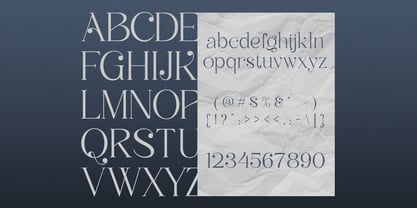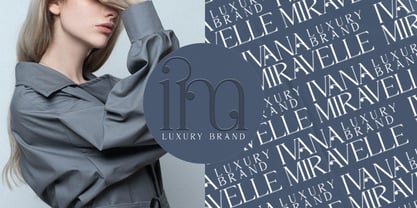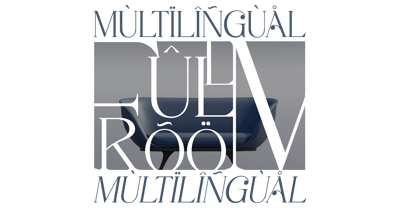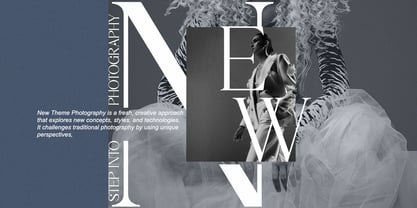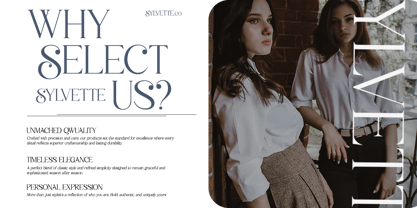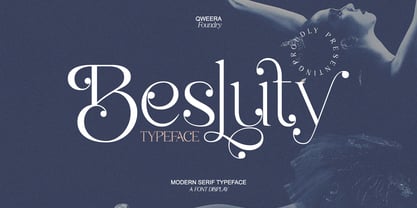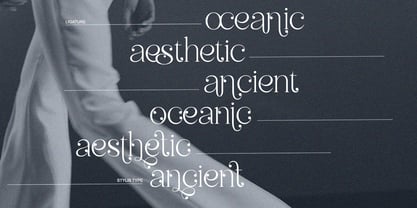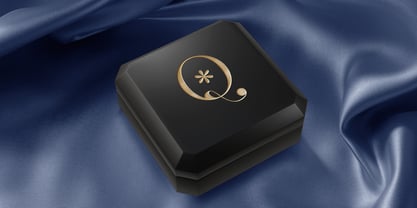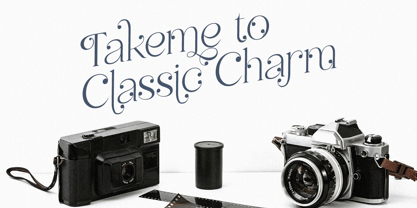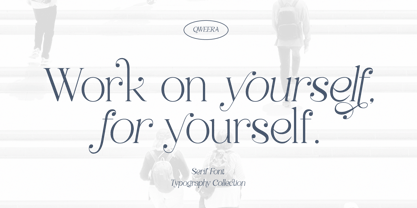
Besluty
La familia tipográfica Besluty fue diseñada por Idhham Cholid Rikzano Yahya y publicada por Qweera Studio. Besluty contiene 2 estilos y opciones de paquete familiar. Más información sobre esta familia
Besluty - Modern Elegant Luxury Serif Font for Premium Branding
Besluty is a breathtaking serif typeface that redefines contemporary elegance with its sophisticated design. Featuring both Regular and Italic styles with premium alternates and ligatures, this font is expertly crafted for luxury branding, high-end logos, exclusive packaging, and editorial masterpieces that demand both prestige and beauty.
Where Modern Luxury Meets Timeless Sophistication
With its razor-sharp serifs and fluid italic variant, Besluty delivers unparalleled versatility for elite brands. The meticulously designed alternates and ligatures enable flawless typographic compositions that exude exclusivity and refinement.
Premium Features Include:
• Luxury Serif Design – Exquisite letterforms with precision details
• Dual Style Versions – Regular & italic for dynamic visual hierarchy
• Exclusive Alternates – 25+ premium character variations
• Artistic Ligatures – Seamless letter connections
• Universal Application – From perfume packaging to luxury billboards
• Extended Latin Support – Complete professional character set
Elevate Your Brand with Besluty's Signature Elegance Ideal for:
• Haute couture branding
• Luxury watch packaging
• Premium cosmetic lines
• High-end editorial spreads
• Exclusive event collateral